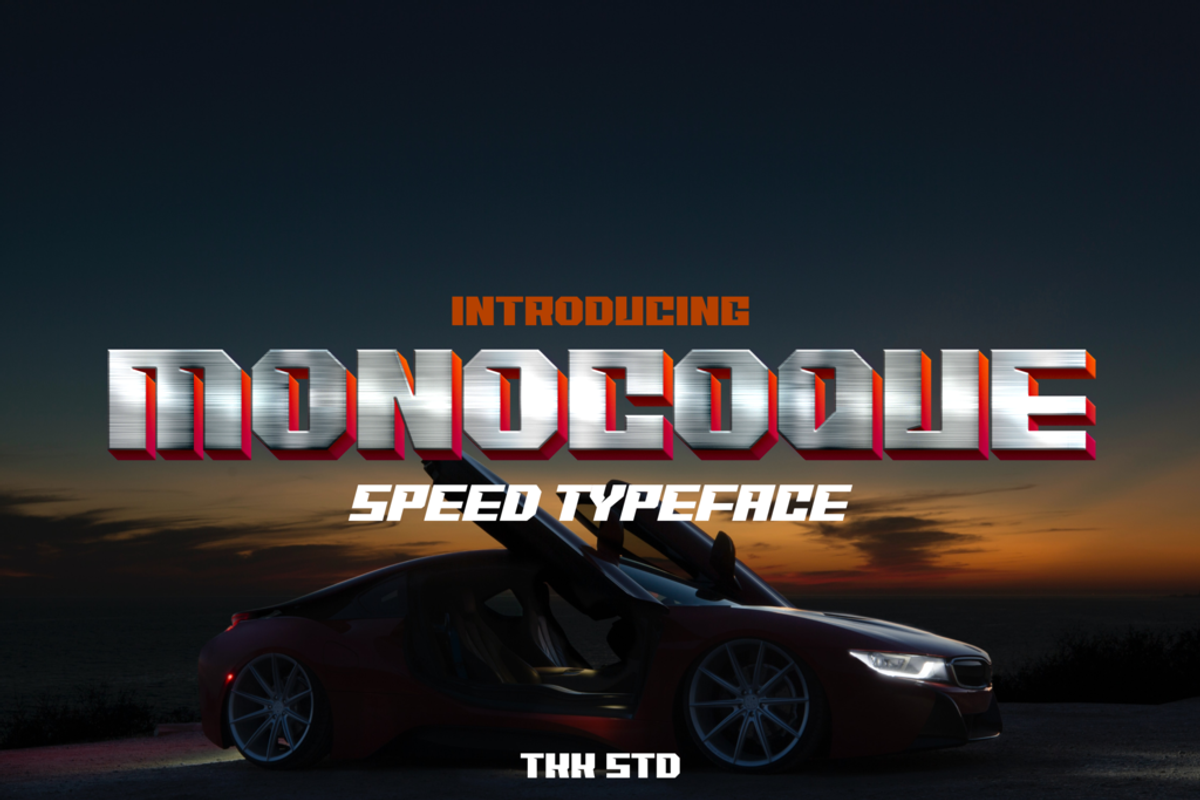
Bold, dynamic, and designed for high-energy projects, MONOCOQUE - Gaming Font Free Download is a powerful display typeface perfect for all things gaming. Whether you’re creating logos, posters, game interfaces, or promotional materials, this font gives your designs an intense, futuristic, and tech-inspired feel.
With its angular letterforms, sleek design, and modern touches, MONOCOQUE is ideal for game developers, esports brands, or anyone looking to capture the thrill and excitement of the gaming world. It brings a sharp, aggressive edge to your typography, making your message stand out with energy.